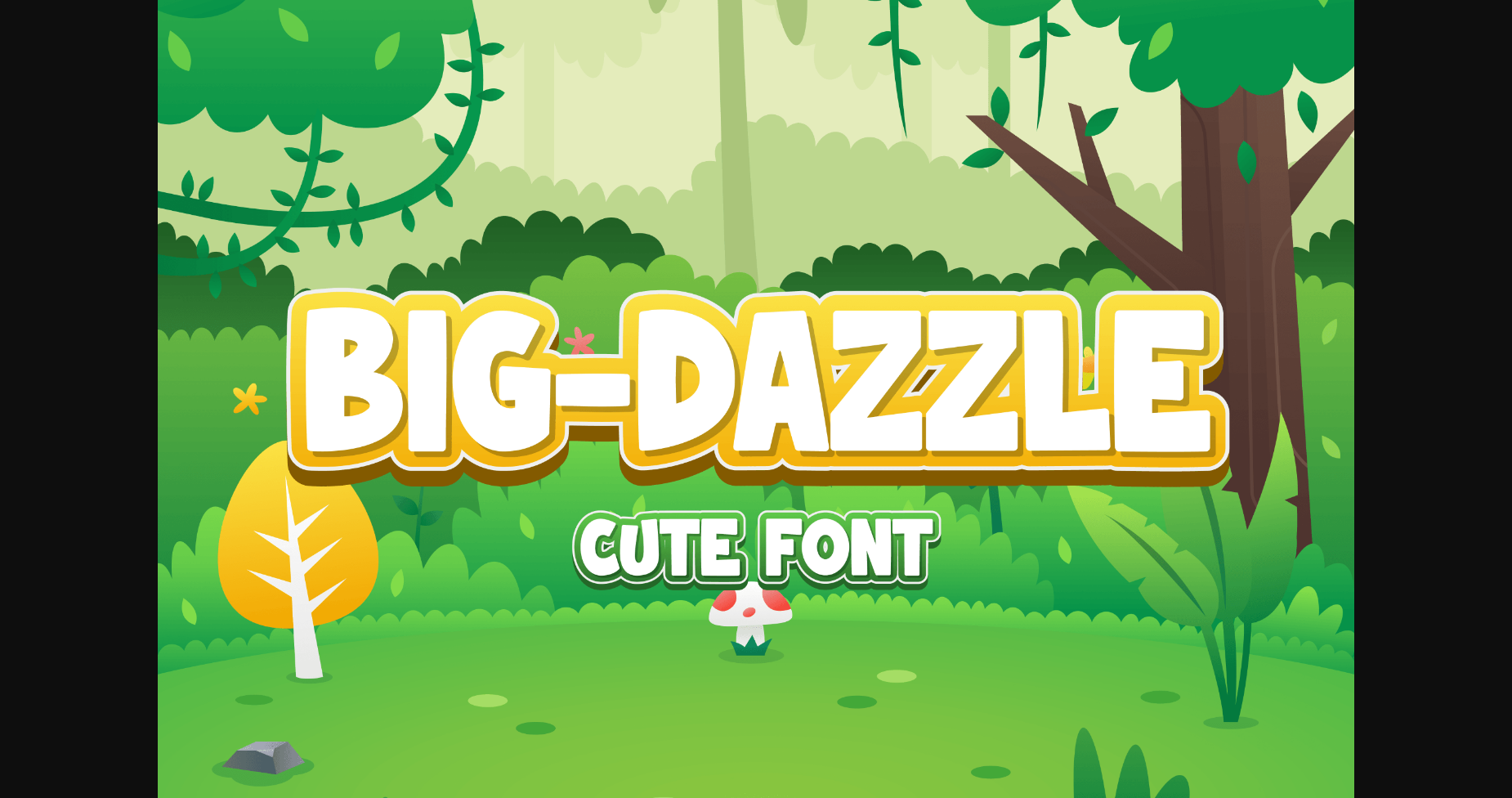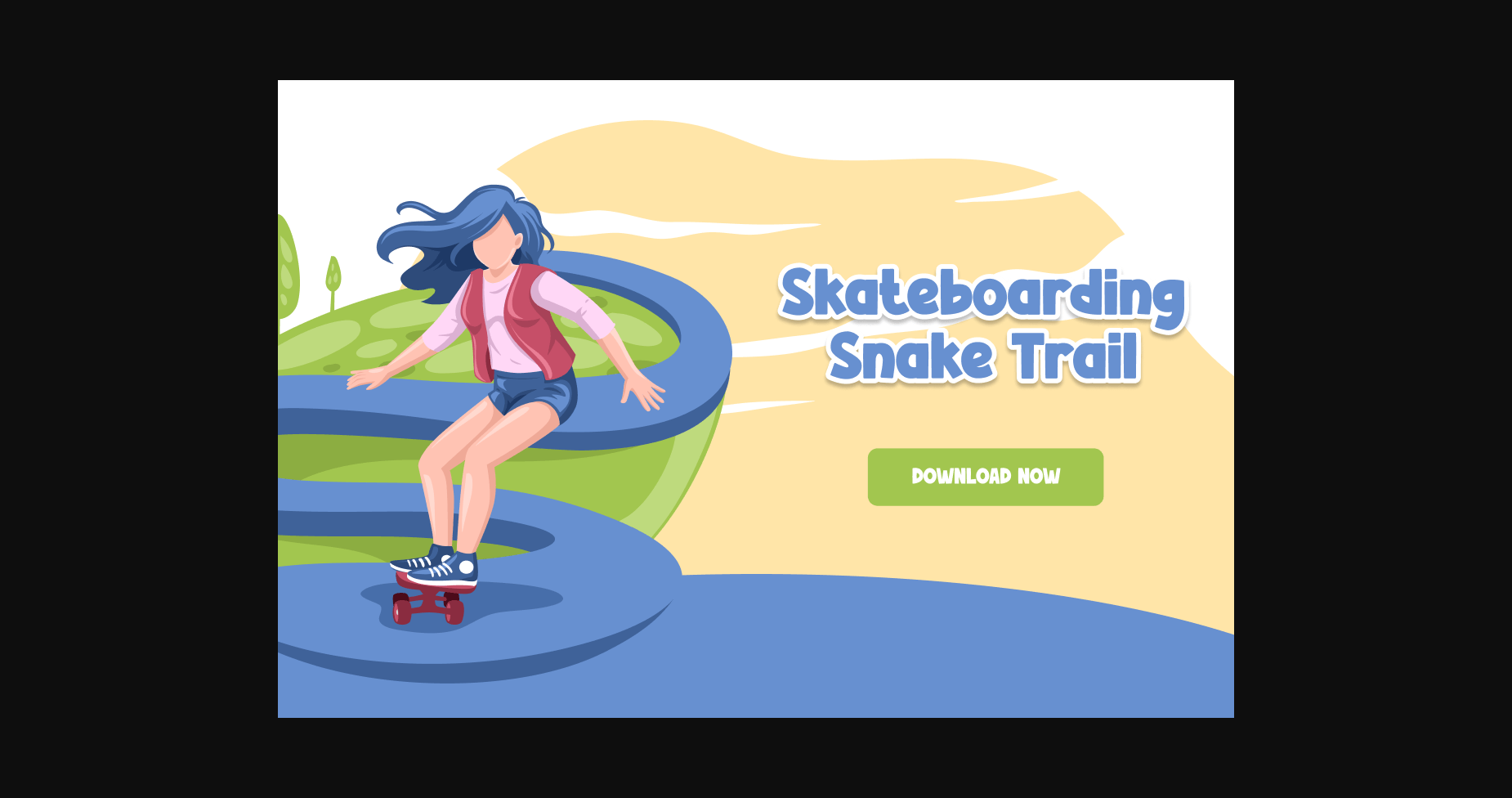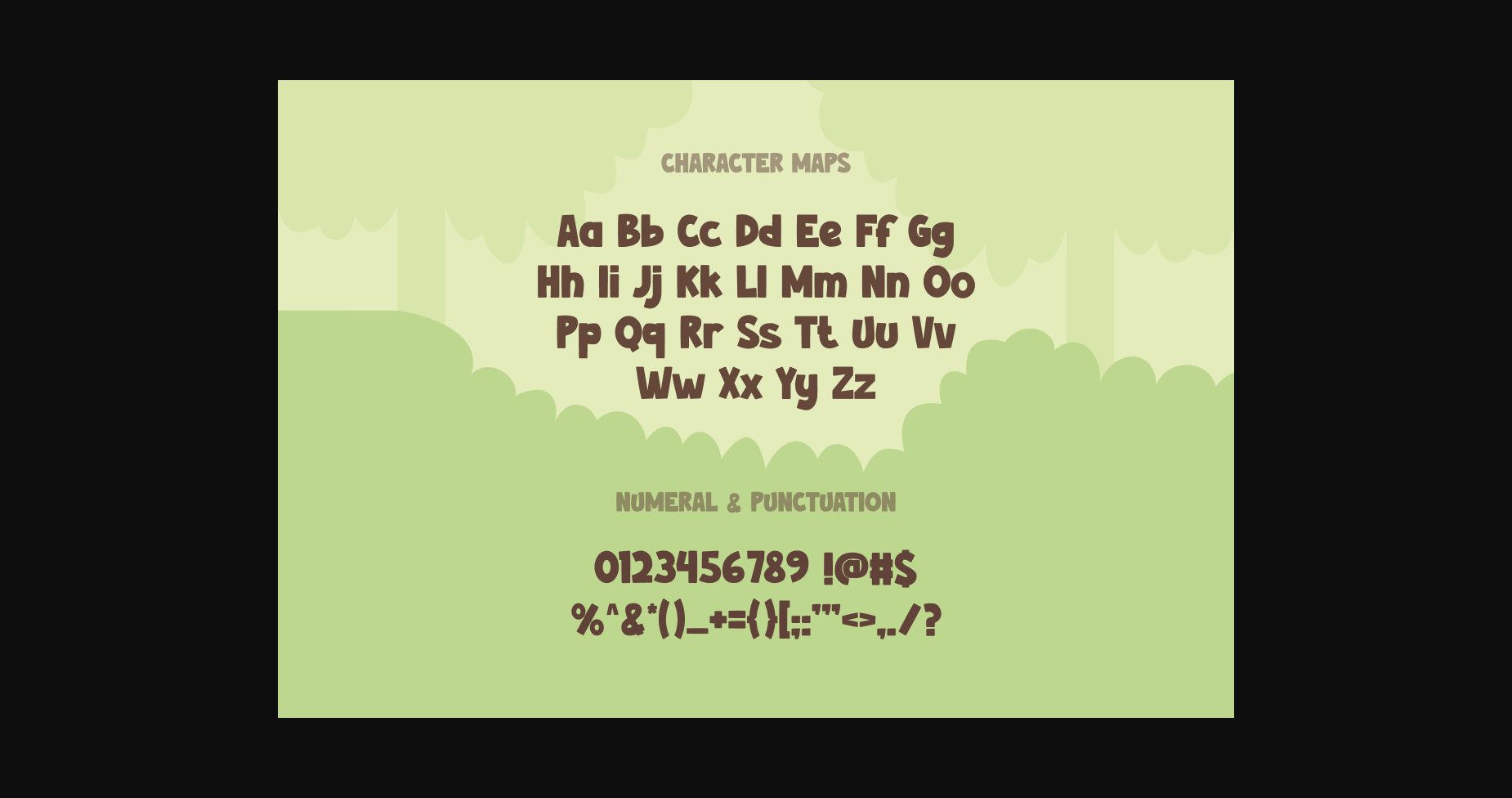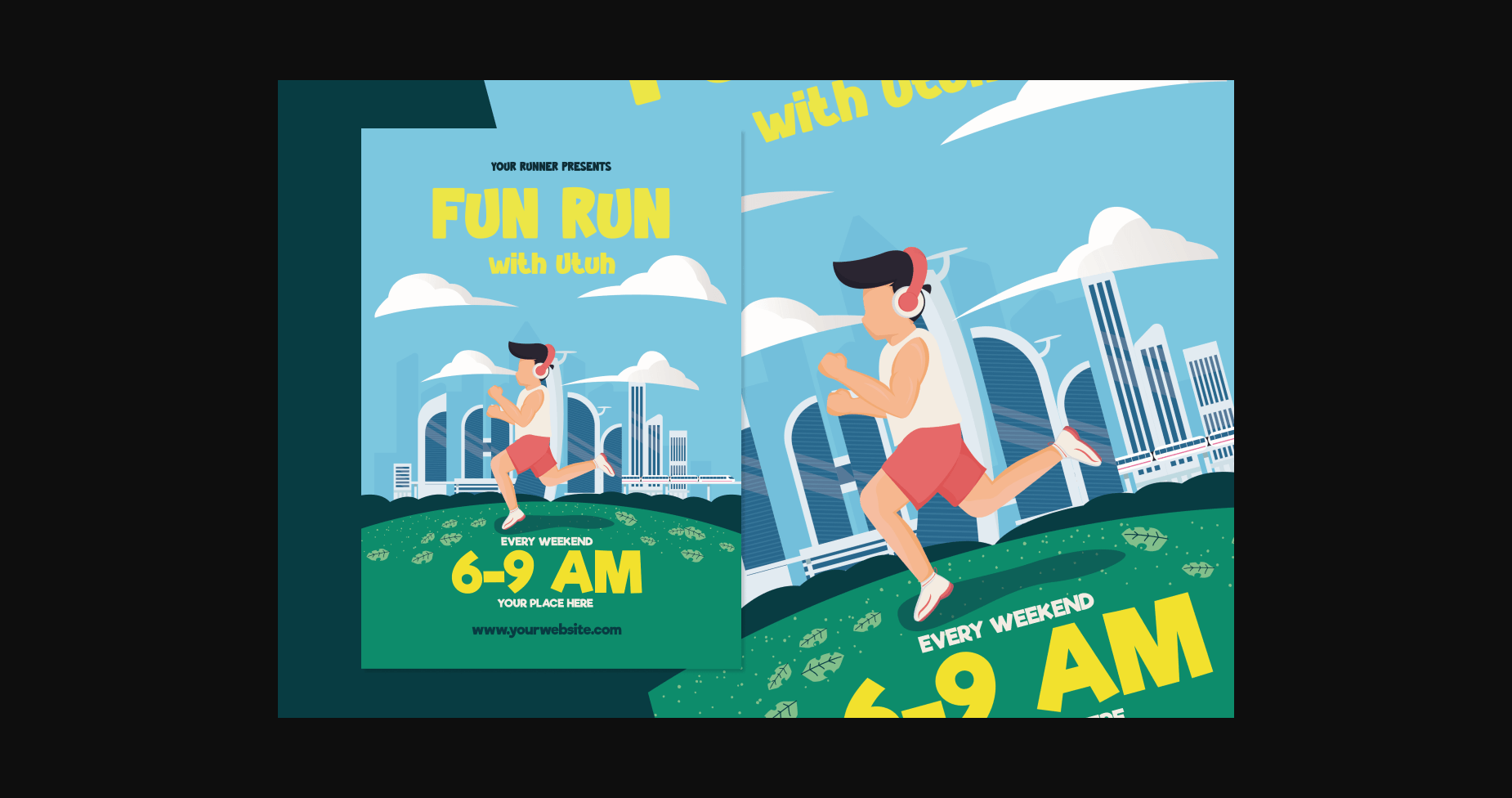
About Big Dazzle Font
BIG DAZZLE – Cute Font
A font that pops in and brings a smile. Bold and funny shapes will make your word get all the attention you need.
Suit perfectly for pop culture books market, online games, teens event posters, school supplies font, posters, movie titles, youtube covers, youtube thumbnails, social media page covers, and so on…
A font that pops in and brings a smile. Bold and funny shapes will make your word get all the attention you need.
Suit perfectly for pop culture books market, online games, teens event posters, school supplies font, posters, movie titles, youtube covers, youtube thumbnails, social media page covers, and so on…